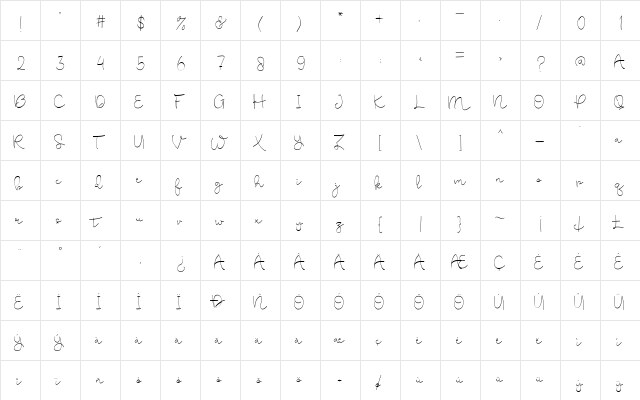
Cute Baby Regular Regular
| Foundry | BonjourType |
| Designer | Rachma |
Design Context for Cute Baby Regular Typeface
Cute Baby Regular is a composed and adaptable typeface that performs quietly and consistently across a wide range of design contexts.